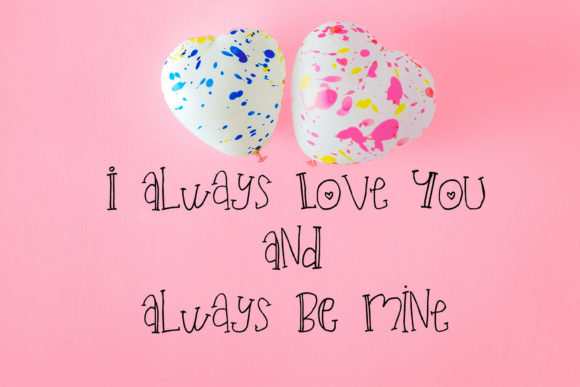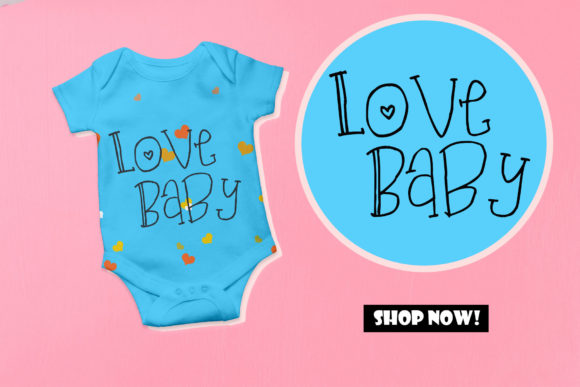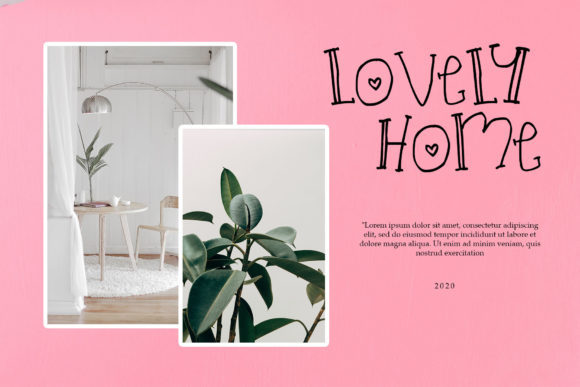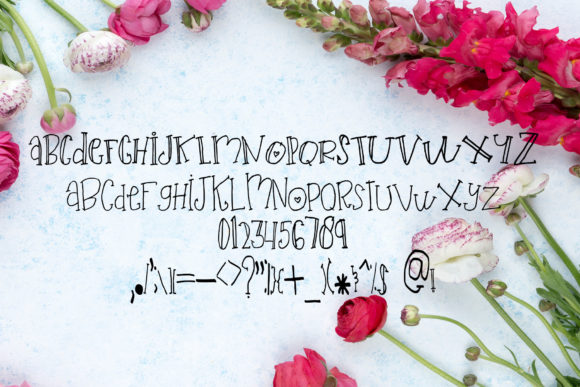
HomeScript FontsLove Blossom Font Script Fonts Love Blossom Font FacebookXPinterestWhatsApp Love Blossom Font Poster 2 Love Blossom Font Poster 3 Love Blossom Font Poster 4 Love Blossom Font Poster 5 About Love Blossom Font Love Blossom is a sweet handwritten font. It will take your Valentine cards to the next level! DOWNLOAD ON CREATIVE FABRICAThis font is sold and delivered by Creative Fabrica. Font Canyon may earn a commission if you buy through this link. People also explored Simple Writing Font Buffalo Font Lustrous Font Muwan Font Holechi The March Font Daisy Font Blaze Font Autumn Font 303 0 TagsLove Blossom Font Previous articleSk Drawing FontNext articleAmealnia Font LEAVE A REPLY Cancel reply Comment: Please enter your comment! Name:* Please enter your name here Email:* You have entered an incorrect email address! Please enter your email address here Website: Save my name, email, and website in this browser for the next time I comment. Personal Use Free Bebas Neue Font Personal Use Free Read more about this font Sunflower Personal Use Free Read more about this font Propaniac Personal Use Free Read more about this font Eloquence Personal Use Free Read more about this font BLOG How to Install and Use Fonts on Windows, macOS, and Web Projects How to Install and Use Fonts on Windows, macOS, and Web Projects Fonts are a crucial part of design and branding. Whether you’re designing a... Best Fonts for YouTube Videos: Make Your Thumbnails Stand Out Elegant Wedding Invitation Fonts – Handwritten & Script Fonts How to Cut Any Font on Cricut: Convert a Font to SVG (Free)